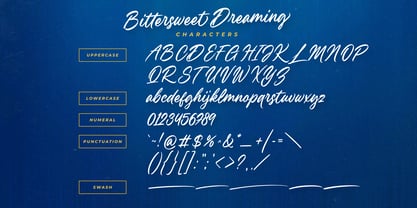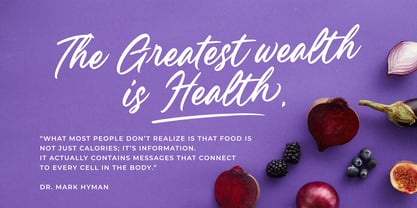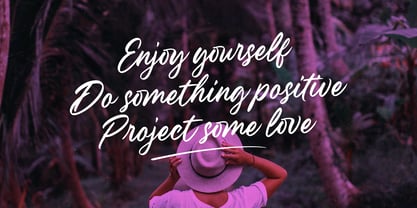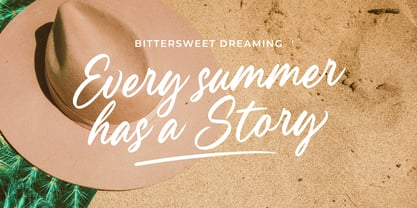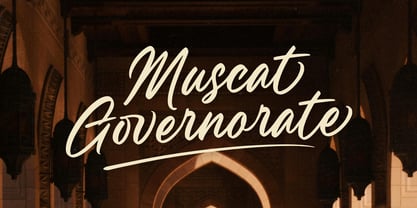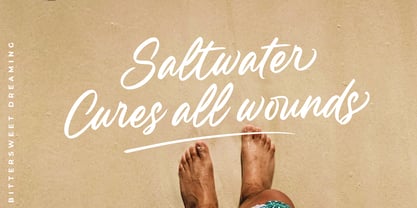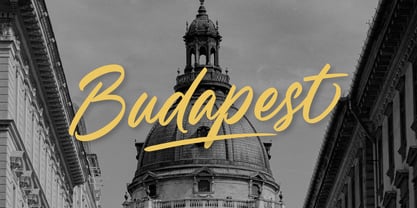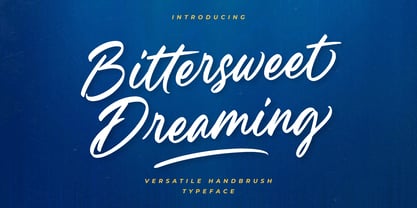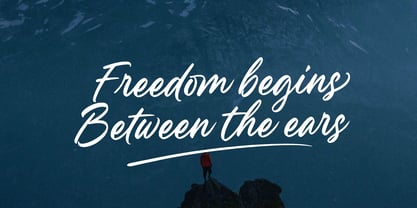
Bittersweet Dreaming
by Damarletter
The Bittersweet Dreaming Font Family was designed by Ardian Nuvianto and published by Damarletter. Bittersweet Dreaming contains 1 styles. More about this family
Bittersweet Dreaming is a versatile handbrush typeface that captures the essence of whimsy and wonder, perfect for adding a touch of magic to your designs.
Designers: Ardian Nuvianto
Foundry: Damarletter